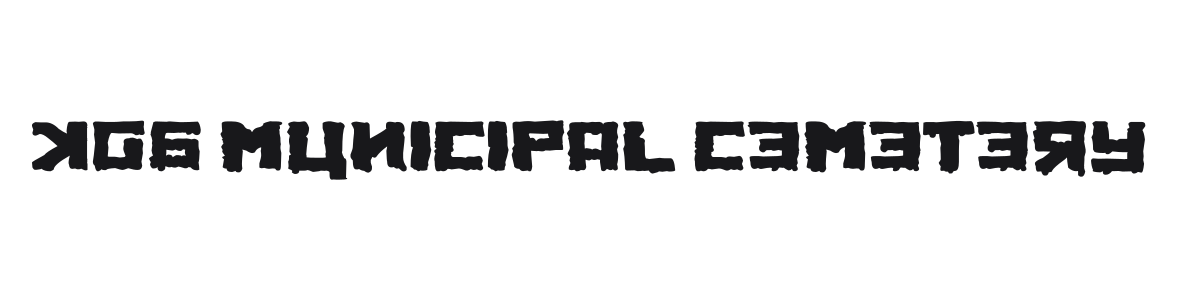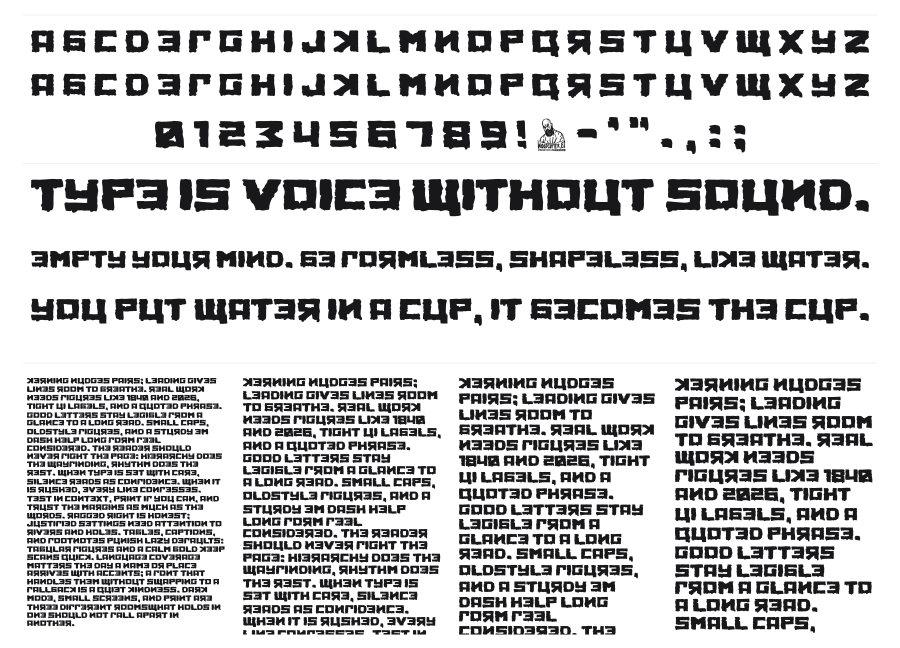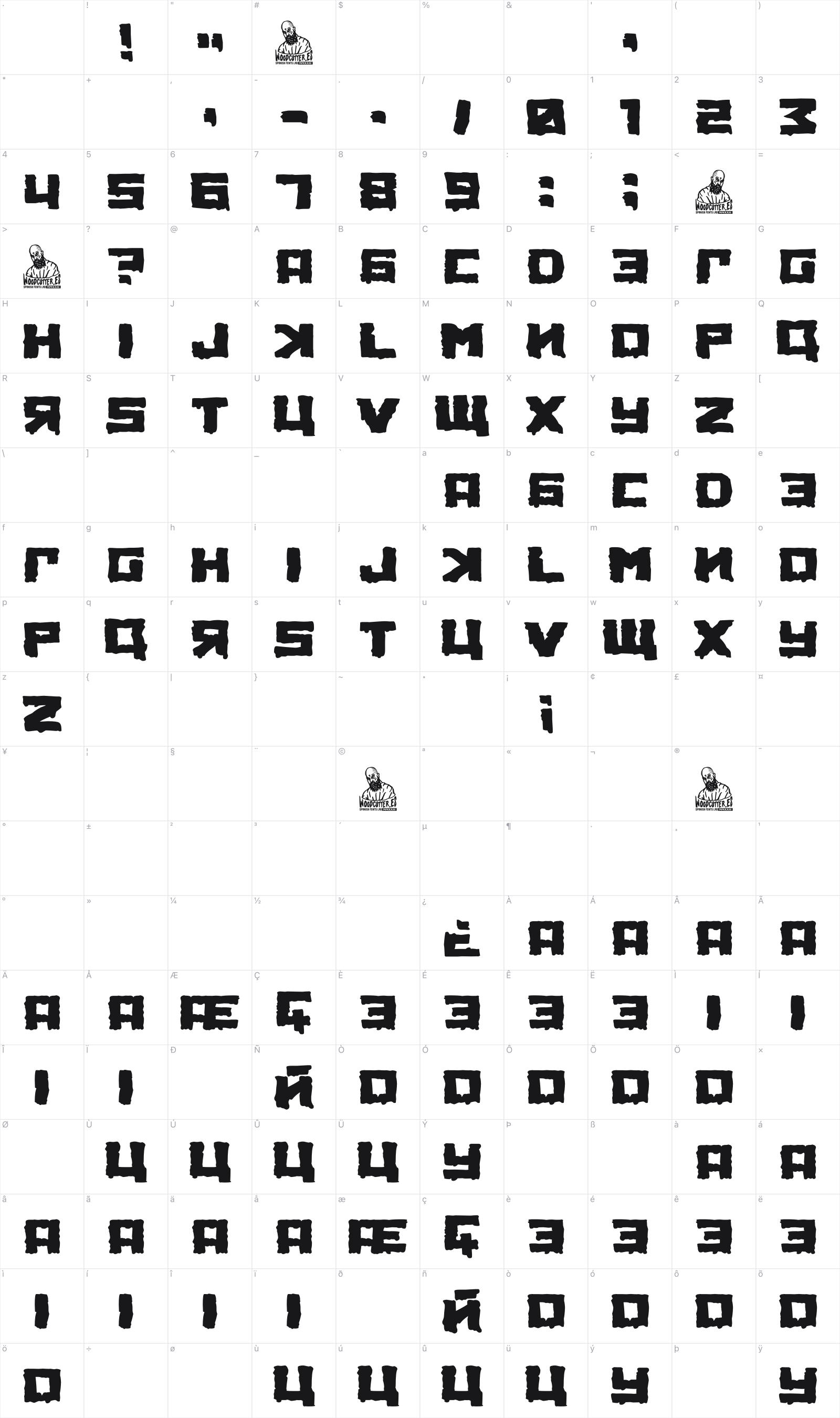
KGB Municipal Cemetery
KGB Municipal Cemetery is a heavy distressed display face by Woodcutter built on squared, Cyrillic-inflected forms with deliberately broken and eroded edges. The reversed and mirrored characters amplify its Soviet propaganda aesthetic, landing somewhere between military stencil and graveyard graffiti. At large sizes it carries real menace.